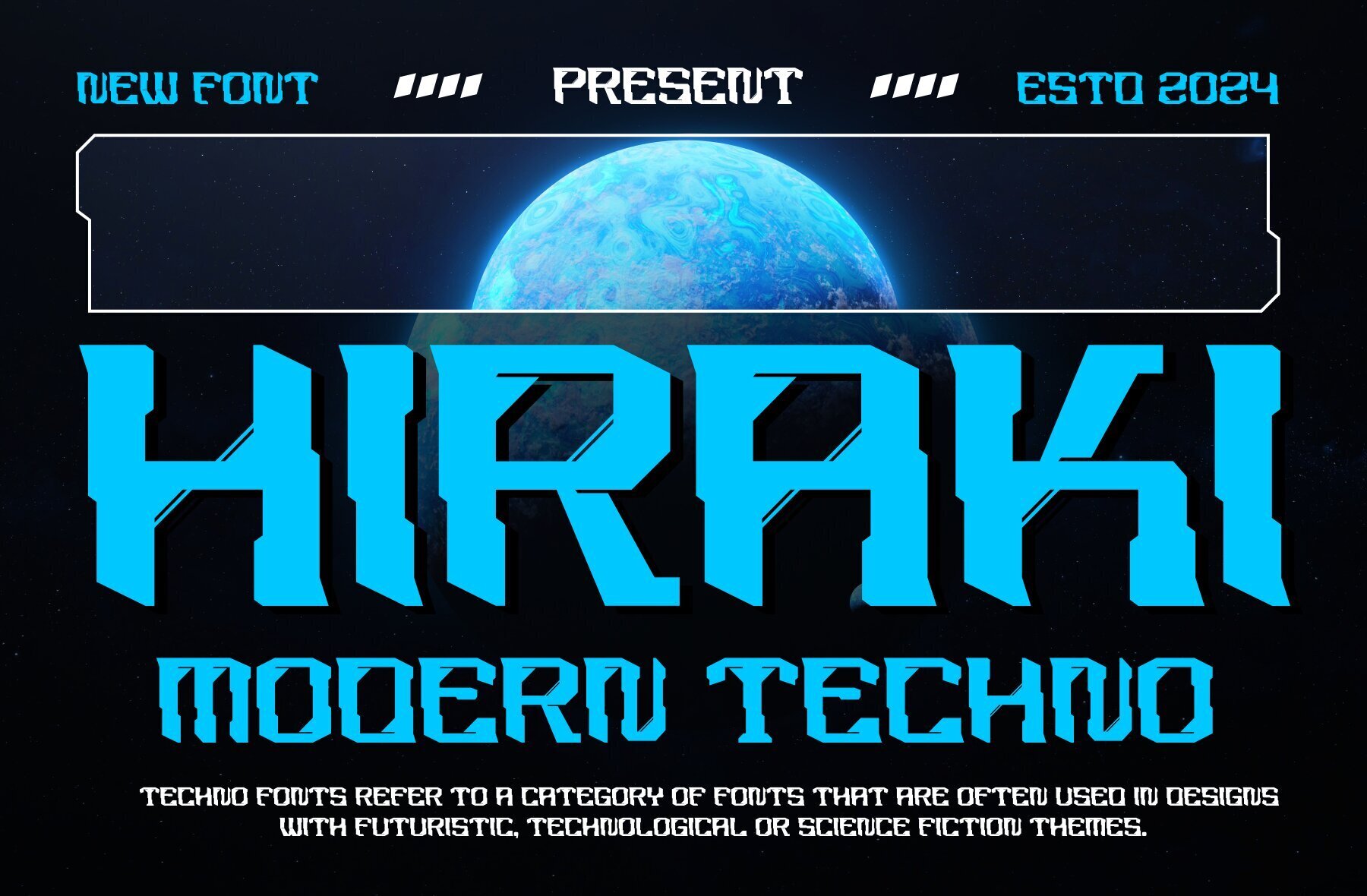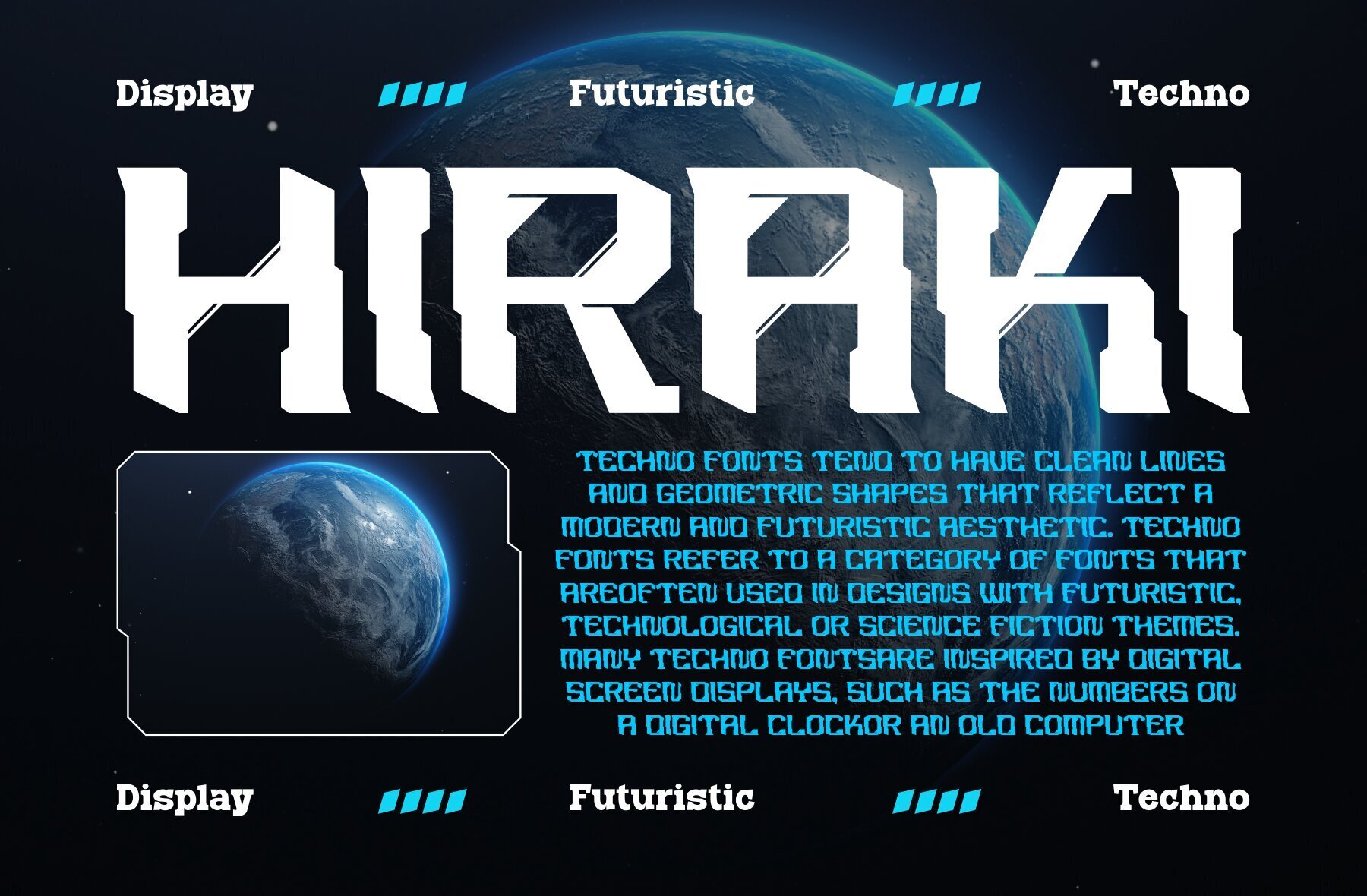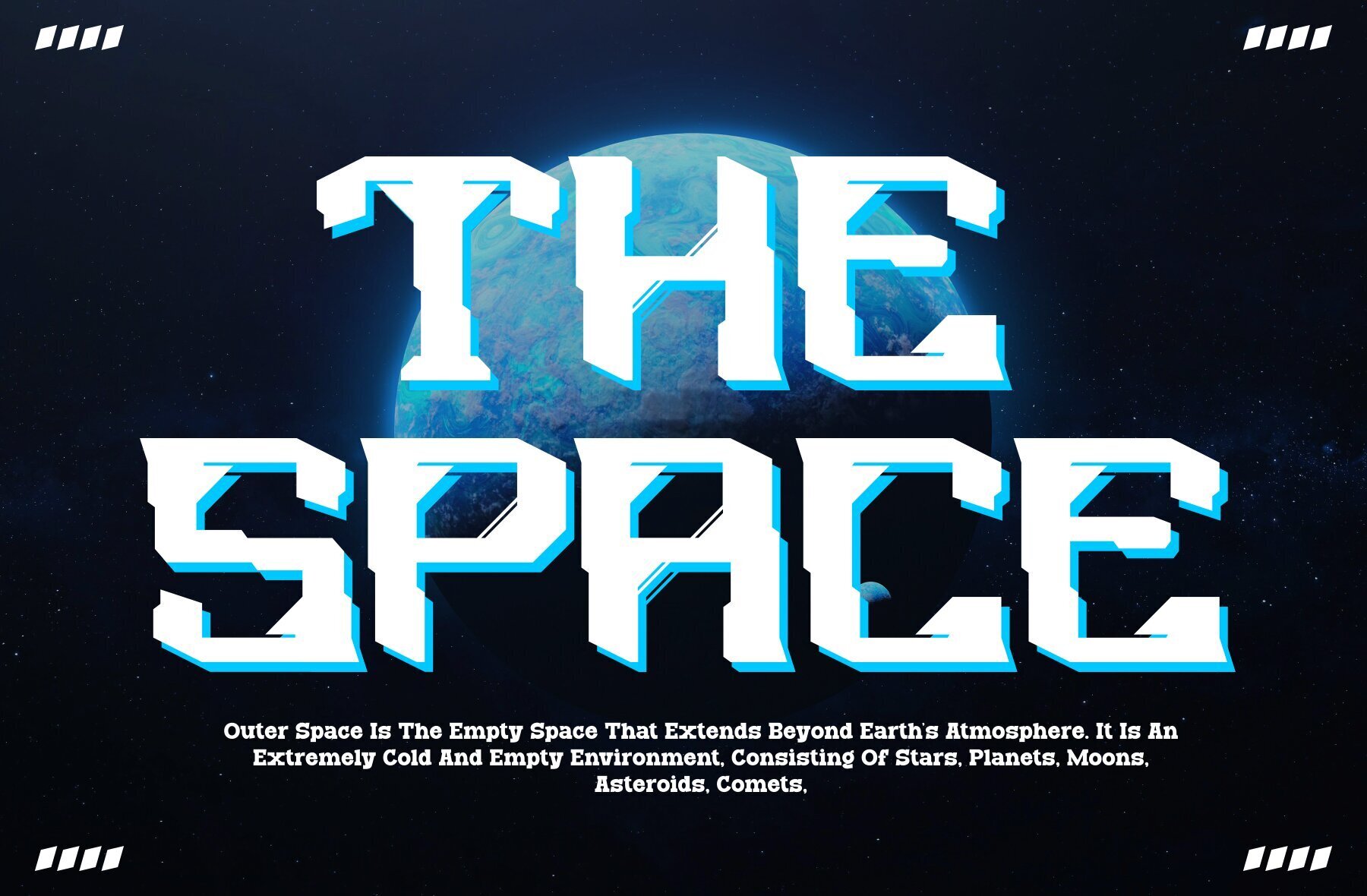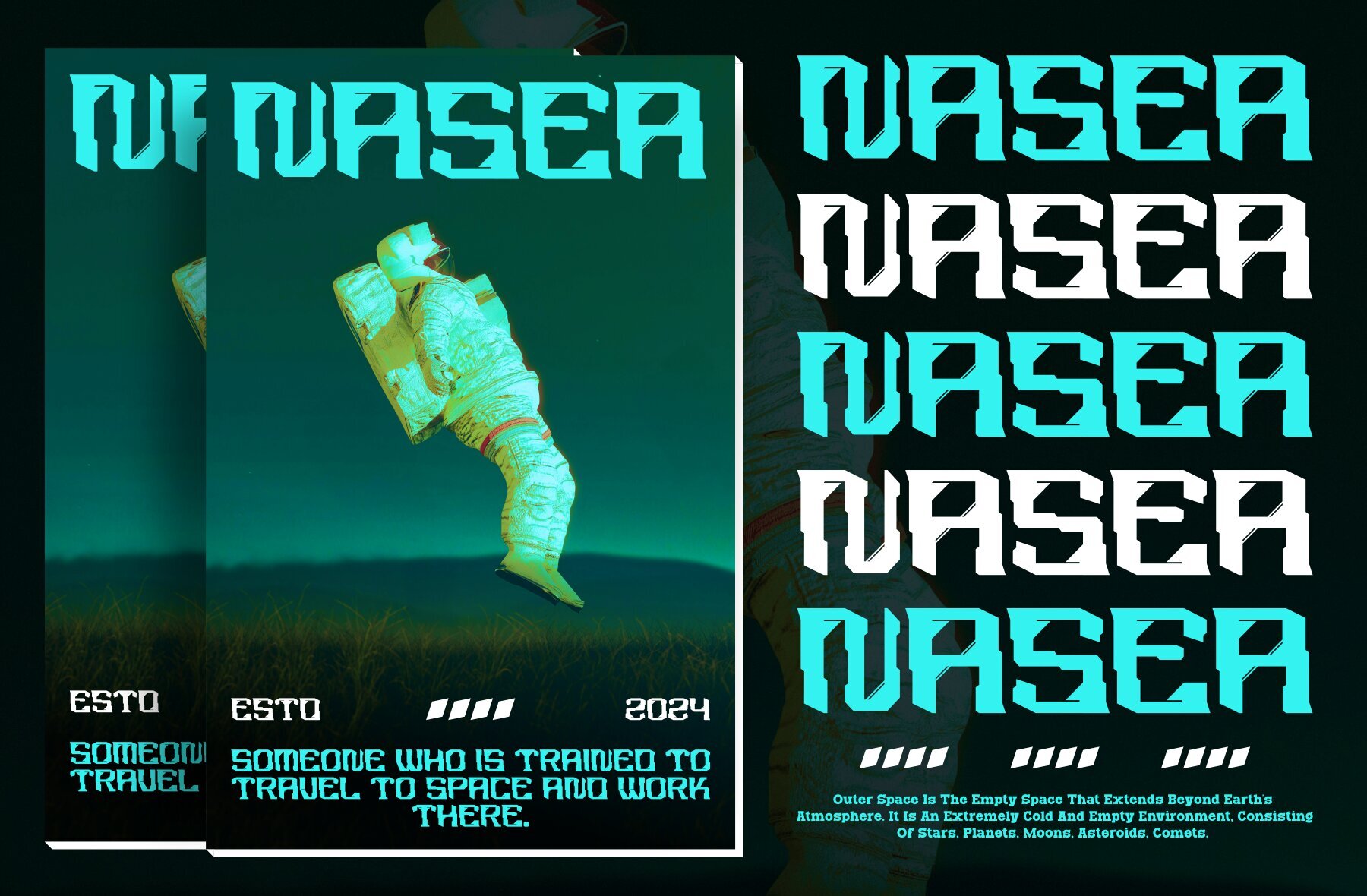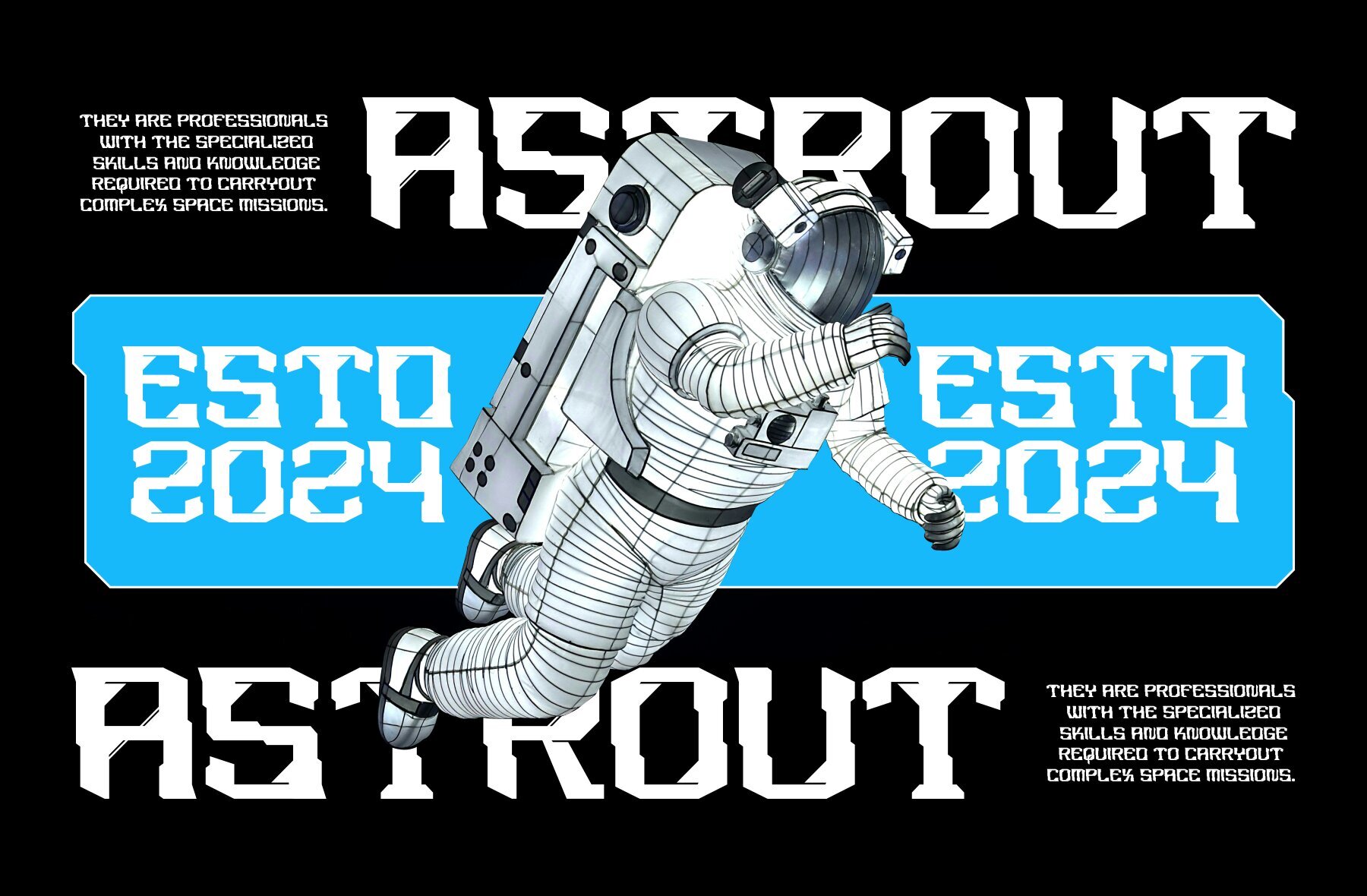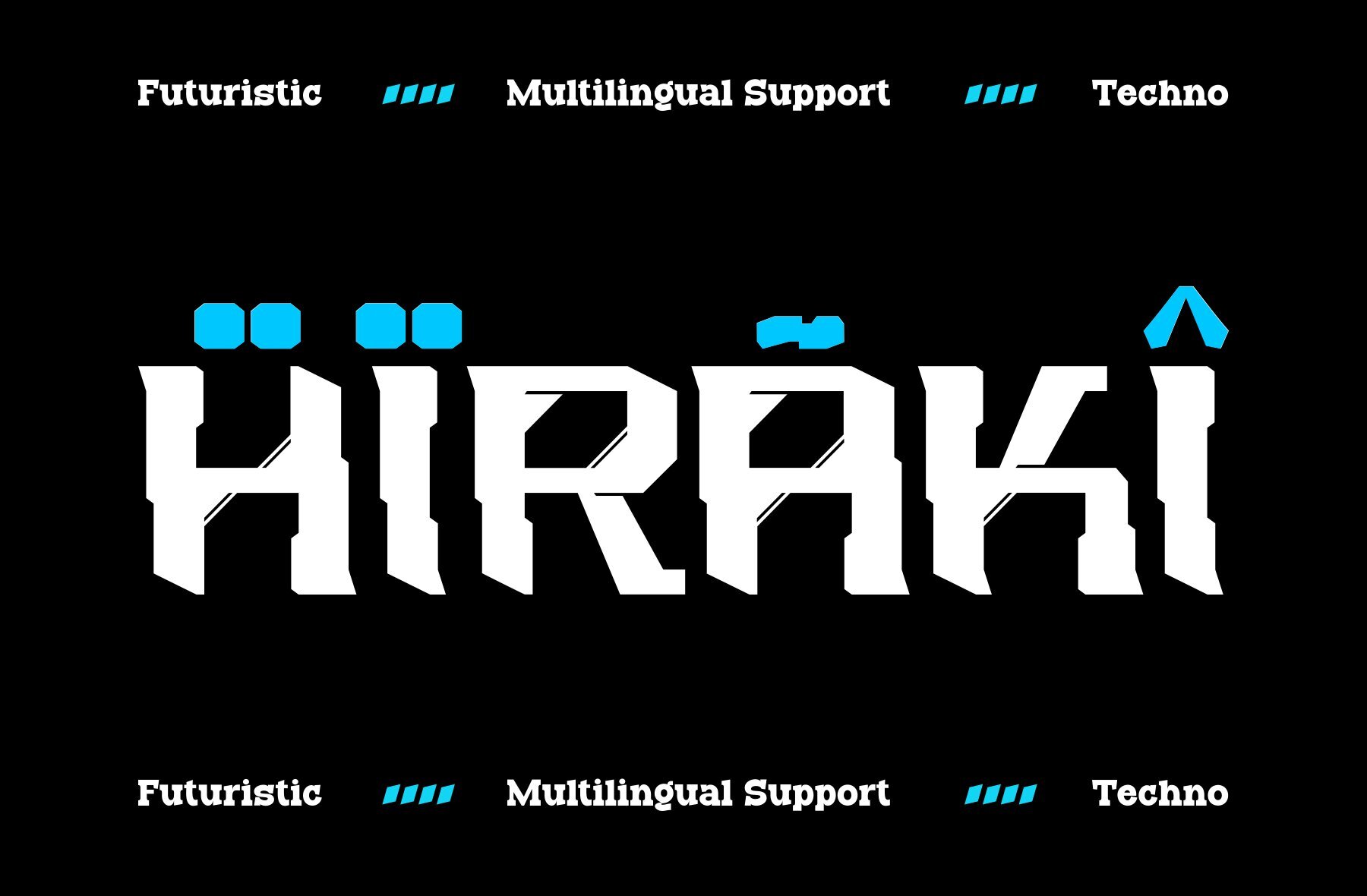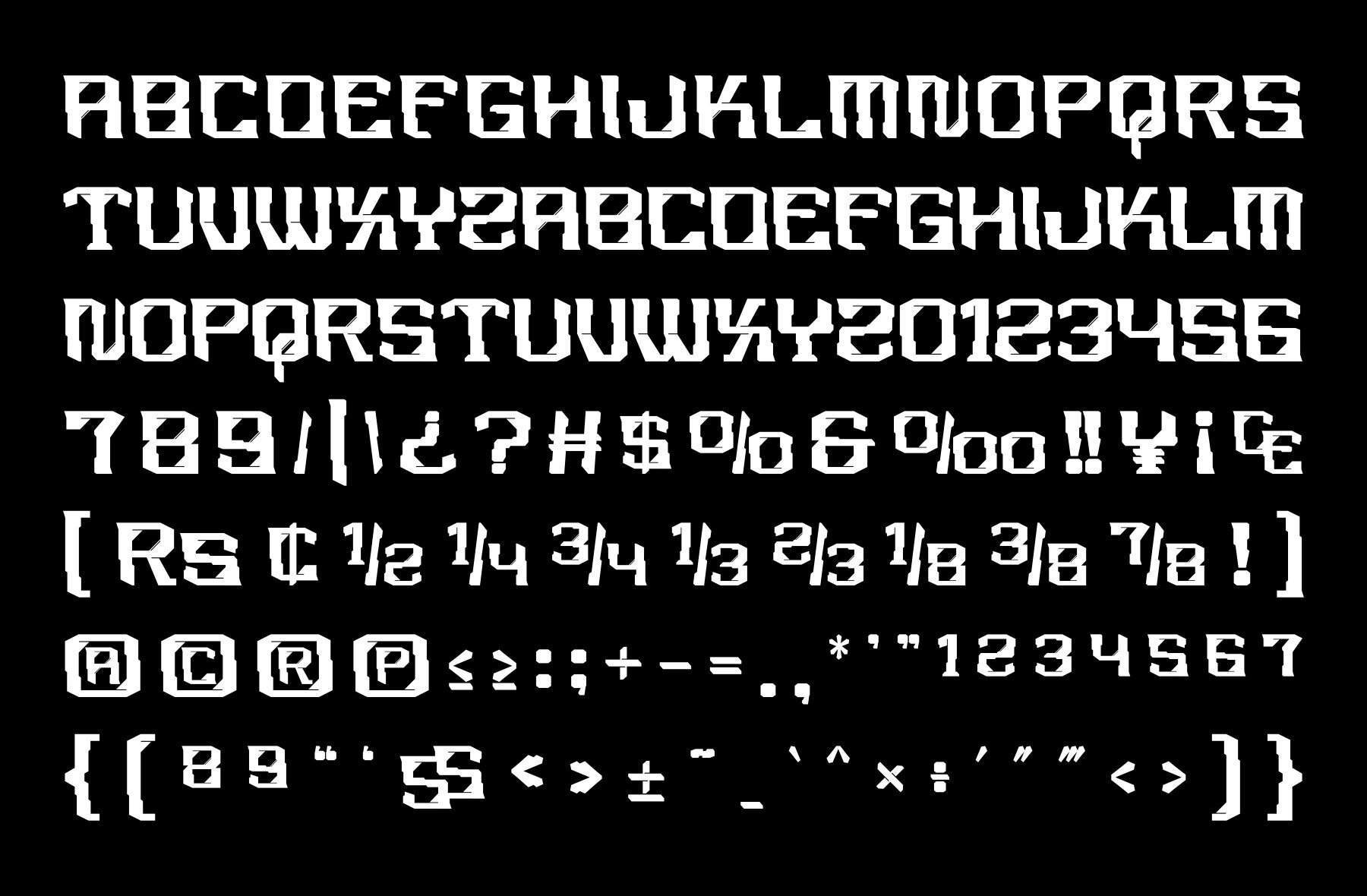
Hiraki Font
Hiraki Regular
Introducing Hiraki - a modern techno font that embodies the essence of advanced technology and the digital era. Featuring sharp lines, geometric shapes, and futuristic elements, this font injects a sense of modernity, innovation, and energy into any design project. Ideal for technology, robotics, science, and modern lifestyle projects, Hiraki offers both aesthetic appeal and functionality.
Perfect for logos, website designs, posters, and other creative endeavors needing a futuristic touch, this versatile font supports uppercase, lowercase, and multilingual characters. Elevate your designs with a futuristic flair using the cutting-edge style of Hiraki.